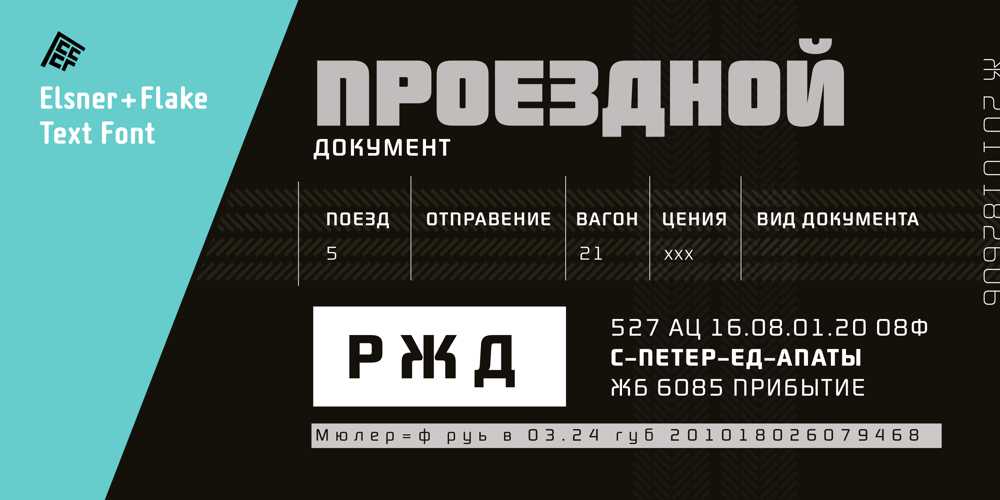
Digital Sans Now
Digital Sans Now font
Digital Sans Now Font Family was designed by Marty Goldstein and published by Elsner+Flake. Digital Sans Now contains 36 styles and family package options. Digital Sans Now combines and completes the many diverse requests and requirements by users of the past years. By now, 36 versions for over 70 Latin and Cyrillic languages have become available, including Small Caps. Digital Sans Now is also available as a webfont and reflects, with its simplified and geometric construction and its consciously maintained poster-like forms as well as with its ornamental character, the spirit of the decorative serif-less headline typefaces of the 1970s. The basic severity of other grotesque typefaces is here repressed by means of targeted rounds. Exactly these formal breaks allow the impression that it could be used in a variety of visual applications. Short texts, headlines and logos of all descriptions are its domain. It is because of this versatility that the typeface has become a desirable stylistic element, especially in such design provinces as technology, games and sports, and that, for many years now, it appears to be timeless. Additional weights designed on the basis of the original, from Thin to Ultra, the Italics, Small Caps and alternative characters allow for differentiated “looks and feels”, and, with deliberate usage, give the “Digital Sans Now” expanded possibilities for expression. The basis for the design of Digital Sans Now is a headline typeface created in 1973 by Marty Goldstein and the Digital Sans family which has been available from Elsner+Flake since the mid-1990s under a license agreement. The four weights designed by Marty Goldstein, Thin, Plain, Heavy and Fat, were originally sold by the American company Visual Graphics Corporation (VGC) under the name of “Sol”. Similarly, the company Fotostar International offered film fonts for 2” phototypesetting machines, these however under the name “Sun”. The first digital adaptation had already been ordered in the mid 1970s in Germany by Walter Brendel for the phototypesetting system Unitype used by the TypeShop Group, in three widths and under the name “Digital Part of the Serial Collection.” Based on the versions by VGC, Thin, Plain, Heavy and Fat, new versions were then created with appropriate stroke and width adaptations for data sets for the fonts Light, Medium and Bold as well as for the corresponding italics